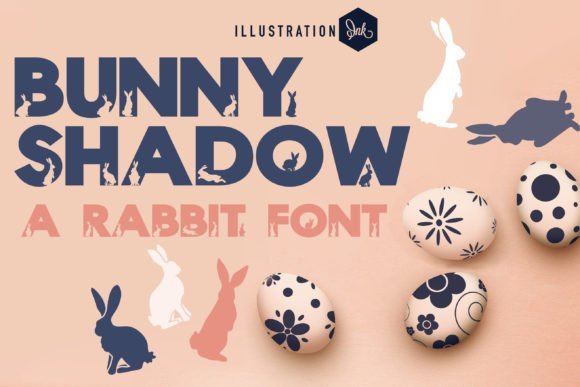
Adding a Touch of Whimsy: The Allure of Bunny Shadow Font
As designers, we’ve all had those moments when we’re searching for the perfect font to capture the essence of a project. Maybe it’s a children’s book, a family brand, or a website that needs to convey a sense of warmth and approachability. For me, that moment came when I stumbled upon Bunny Shadow Font, a delightful and approachable option that perfectly captured the friendly vibe I was going for.
Bunny Shadow Font is a versatile and charming font designed to add a soft and welcoming touch to any design. Its clean lines, rounded edges, and smooth letter flow create a cohesive and charming look that’s perfect for designs that need a friendly touch. Whether you’re working on a project that requires a gentle and playful feel or simply want to add a bit of whimsy to your design, Bunny Shadow Font is an excellent choice.
Bunny Shadow Font Key Features
- Font Style: Bunny Shadow Font is a unique, hand-drawn font with a whimsical feel, featuring a bunny character in the shadows.
- Character Set: Includes a wide range of characters, including uppercase and lowercase letters, numbers, and punctuation marks.
- Unique Characteristics: The bunny character in the shadows adds a playful touch, making this font ideal for children’s books, party invitations, and other fun designs.
Bunny Shadow Font Review
Overall, I think the Bunny Shadow Font is a unique and charming addition to any design project. Here’s what I like about it: ✨
- Playful and whimsical feel: The font’s quirky design elements make it perfect for projects that need a touch of personality.
- Good legibility: Despite its ornate nature, the font is still easy to read, even at smaller font sizes.
- Customization options: The font comes in a range of weights and styles, making it easy to find the perfect fit for your project.
- Limited compatibility: The font may not work well in all design software or on certain platforms.
- Not ideal for body text: While the font is great for headings and titles, it may be too ornate for large blocks of body text.
- Not scalable: The font’s intricate details may become pixelated or distorted when scaled up or down.
Overall, I’d recommend the Bunny Shadow Font for projects that need a touch of whimsy and personality. Just be aware of its limitations and use it judiciously to get the best results.
Use the Bunny Shadow Font to create playful, whimsical designs for children’s products, party invitations, or social media graphics.
Experiment with different font sizes and colors to create a unique visual effect.
Combine the Bunny Shadow Font with other creative elements, such as illustrations or graphics, to add depth and interest to your design.
Alternatives to Bunny Shadow Font
Ostrich Sans is a sans-serif font with a unique, handwritten feel. It’s perfect for use in creative projects that require a friendly and approachable tone. When to use: Designing children’s books, restaurant menus, or promotional materials. Compared to Bunny Shadow Font: Ostrich Sans has a more casual and relaxed vibe, whereas Bunny Shadow Font is more whimsical and playful.
Great Vibes is a script font with a modern, elegant feel. It’s ideal for use in projects that require a touch of sophistication and luxury. When to use: Designing wedding invitations, luxury brands, or high-end products. Compared to Bunny Shadow Font: Great Vibes is more refined and sophisticated, whereas Bunny Shadow Font is more playful and cartoonish.
Carolyna Pro is a script font with a vintage, romantic feel. It’s perfect for use in projects that require a touch of nostalgia and whimsy. When to use: Designing wedding invitations, baby shower invitations, or vintage-inspired products. Compared to Bunny Shadow Font: Carolyna Pro has a more elegant and refined feel, whereas Bunny Shadow Font is more playful and cartoonish.